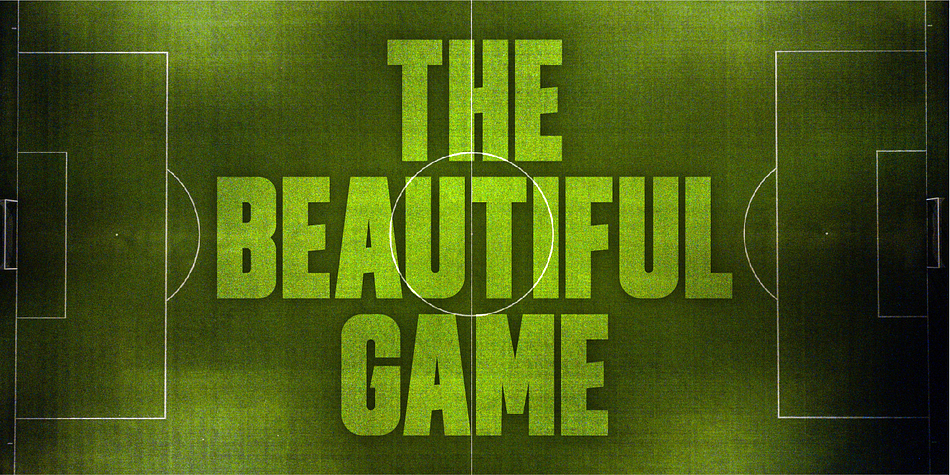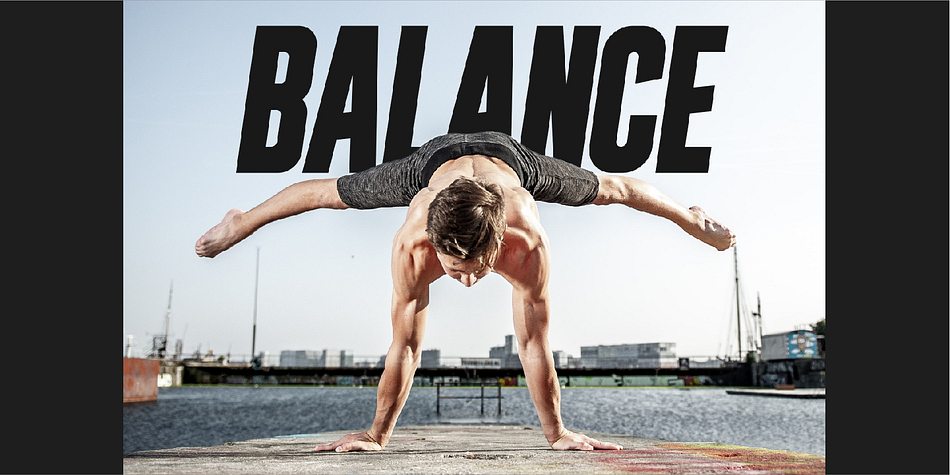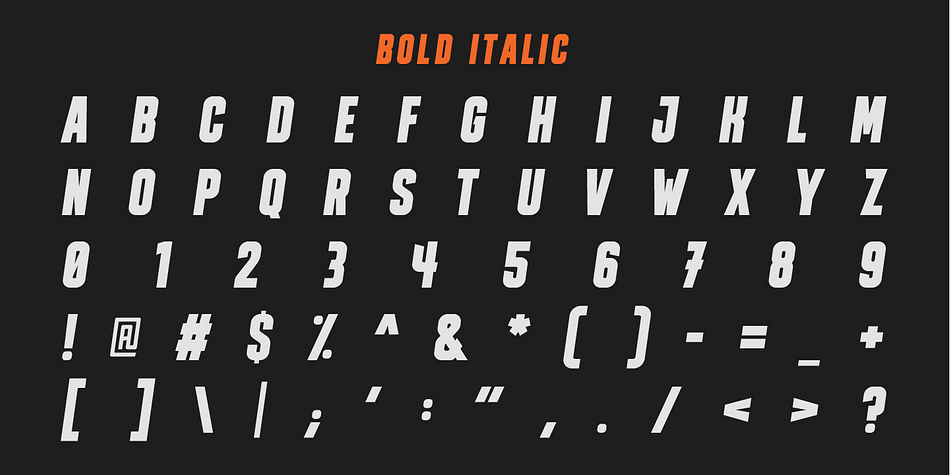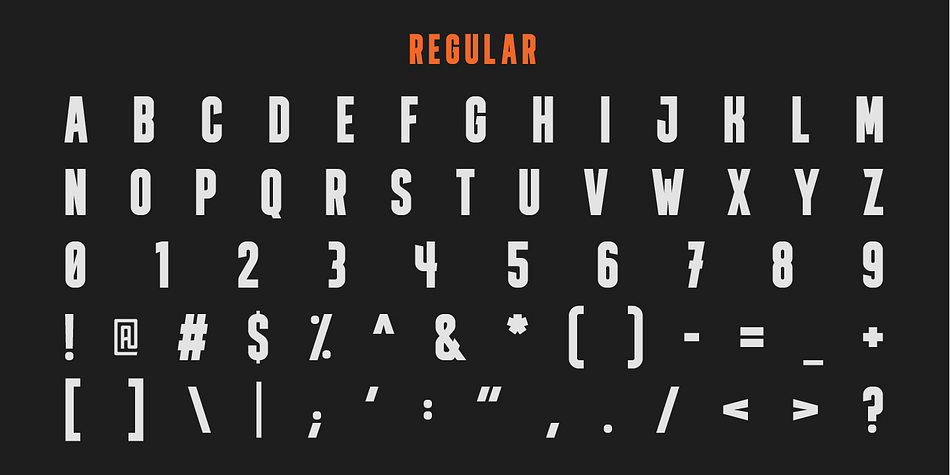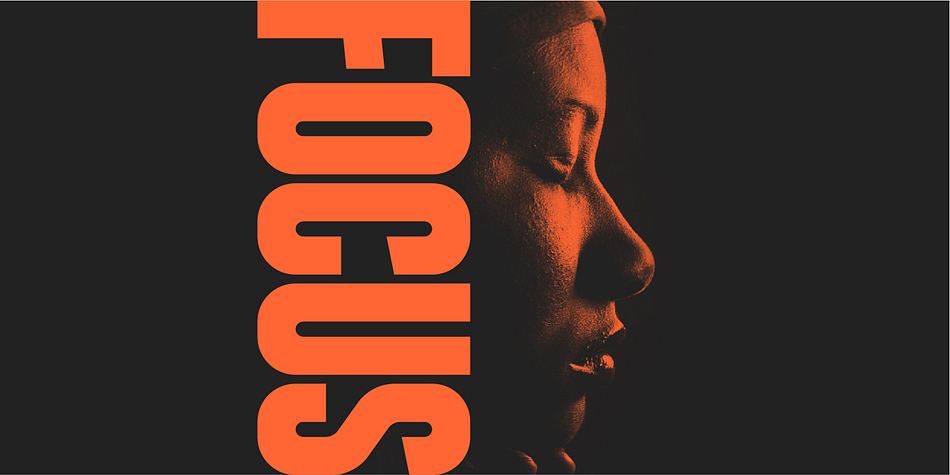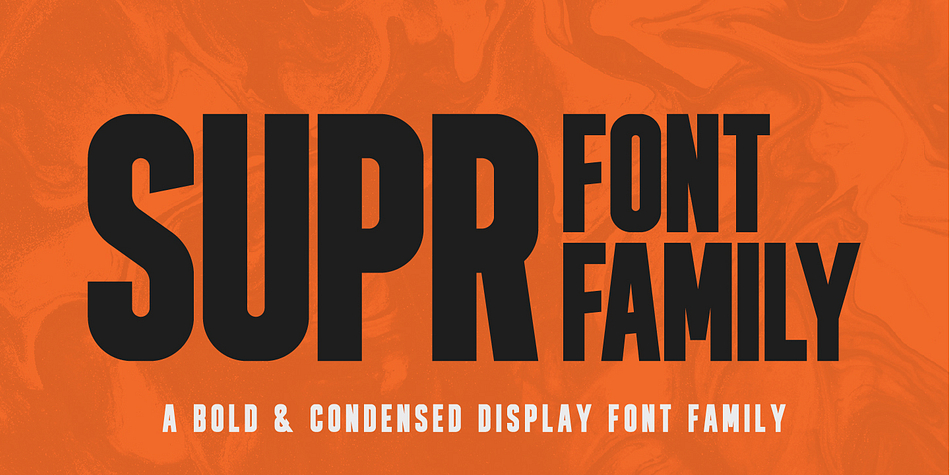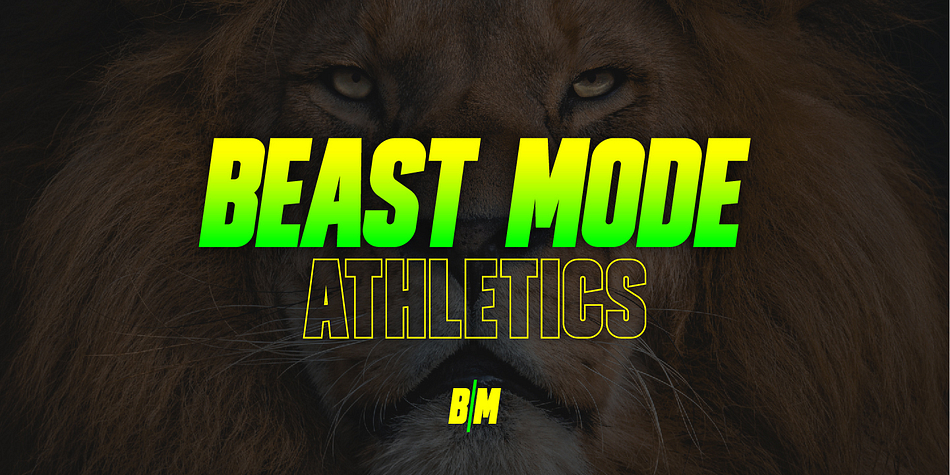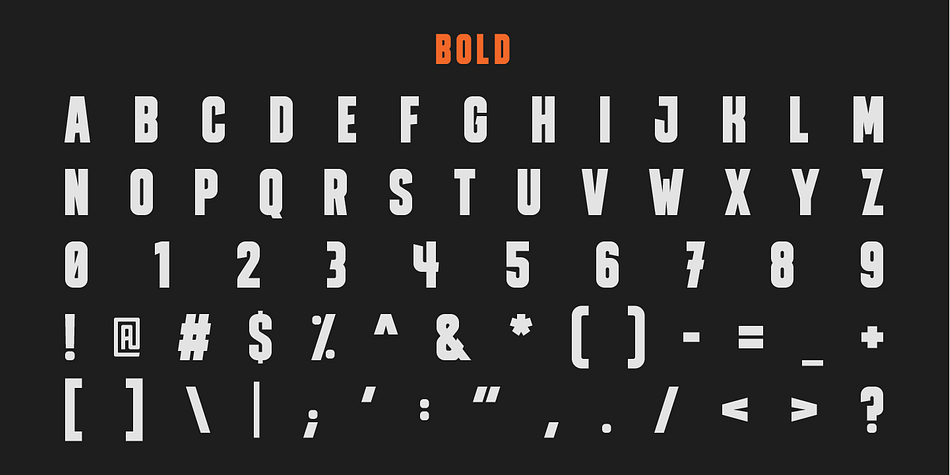
SUPR is a display sans font family. This typeface has four styles and was published by BfredDesign.
SUPR is bold condensed display font family that is inspired by sports. The slight slants in many of the characters give this font an athletic feel. SUPR can be used diversely, but is particularly best in logos and large typographic applications.